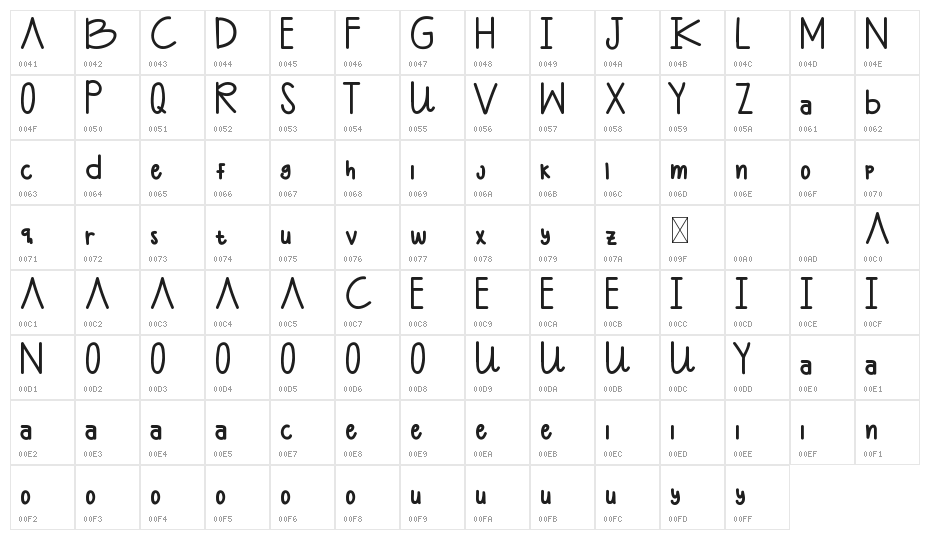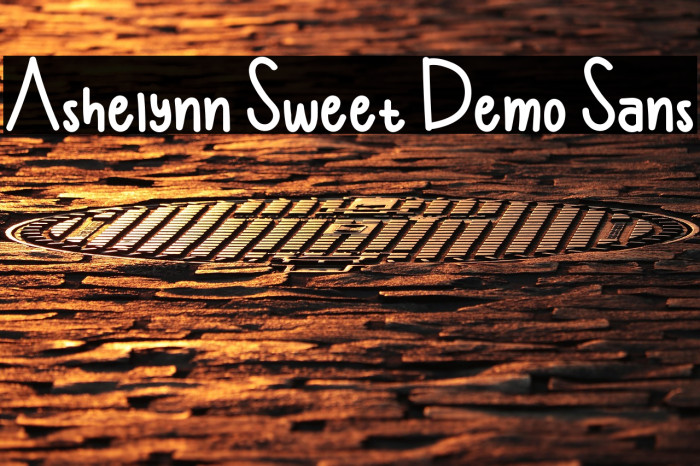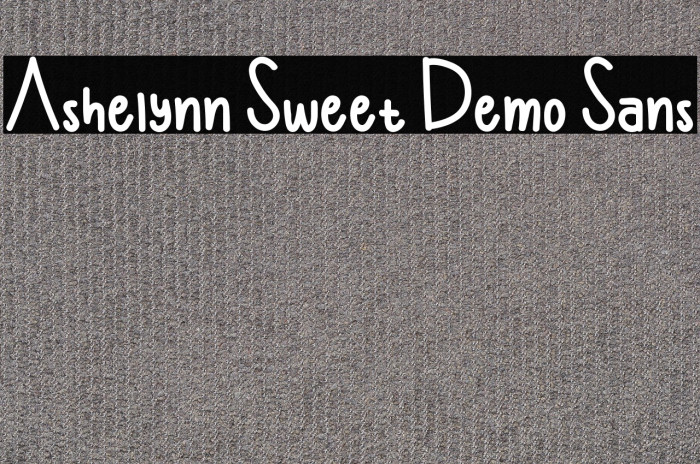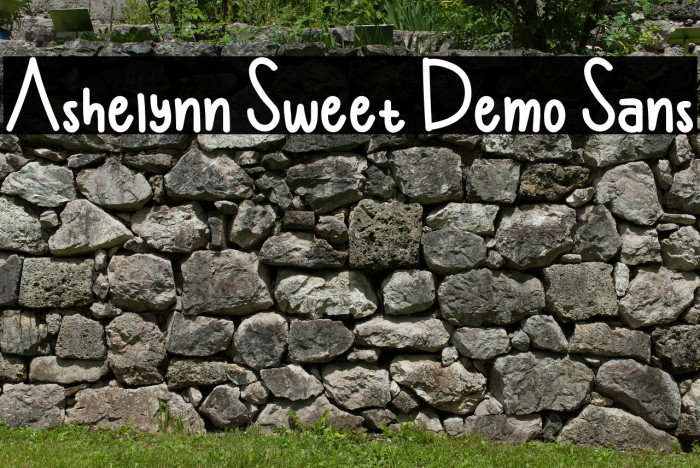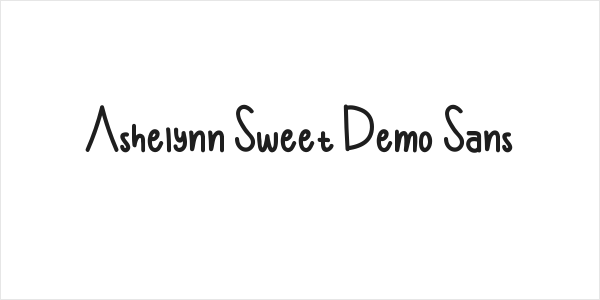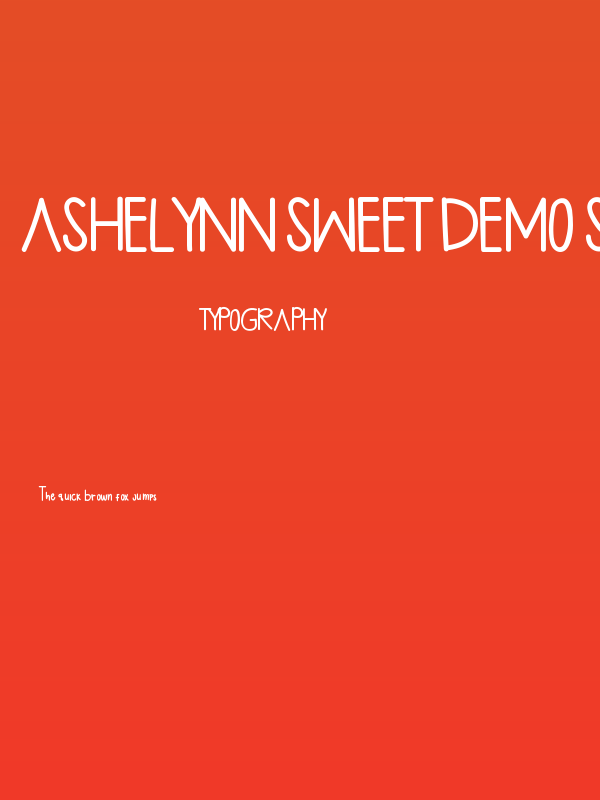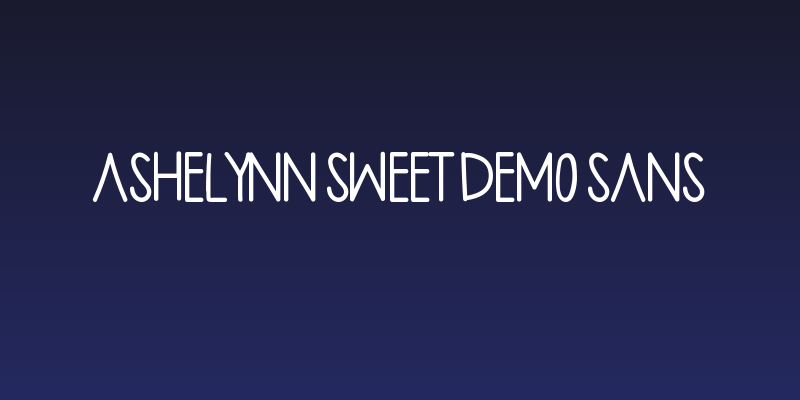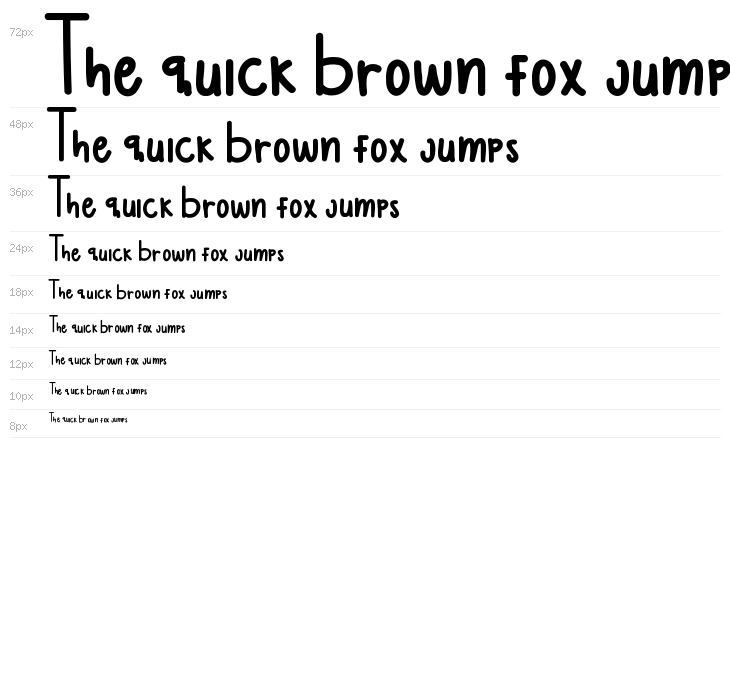
Ashelynn Sweet Demo Sans Font
Ashelynn Sweet Demo Sans Description
This font features a playful and casual style with a handwritten feel. The uppercase letters are tall and slightly narrow, with a consistent stroke width that gives them a clean and modern appearance. The lowercase letters are more rounded and have a whimsical touch, adding to the font's overall charm. The numbers and special characters maintain the same playful aesthetic, making this font versatile for various creative projects. Its informal style is perfect for designs that aim to convey friendliness and approachability.
| Use Case | Logos, Headlines, Informal Text |
| Proposed Projects | Ideal for greeting cards, children's books, playful branding, and social media graphics. |